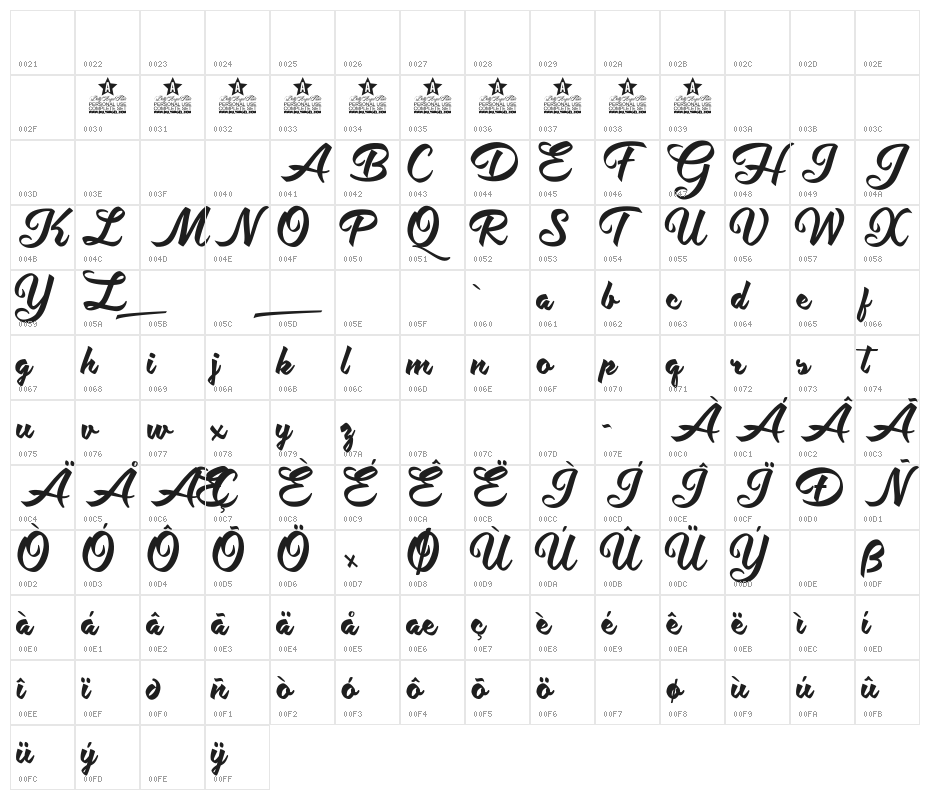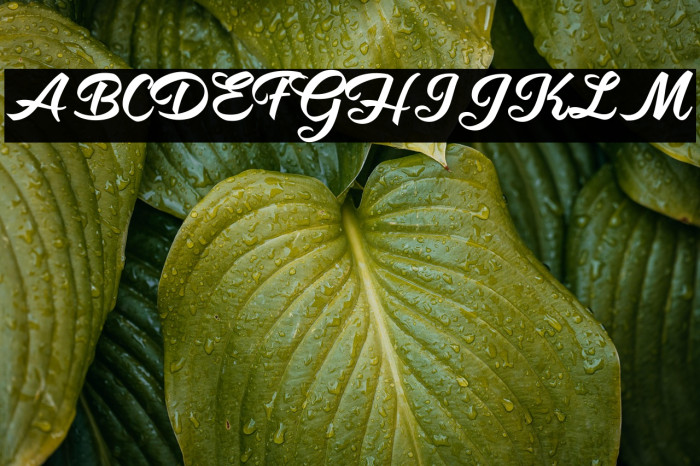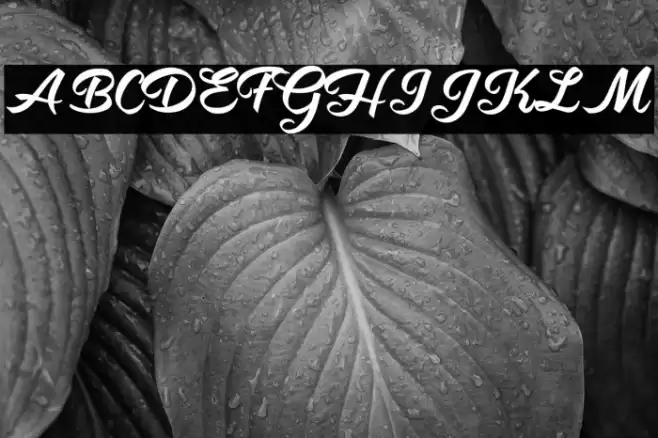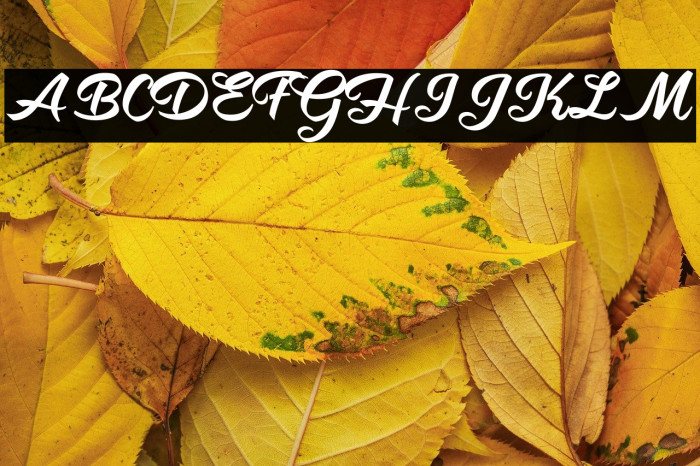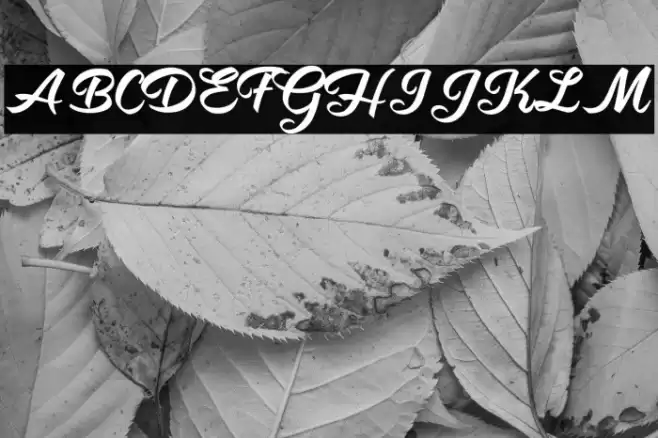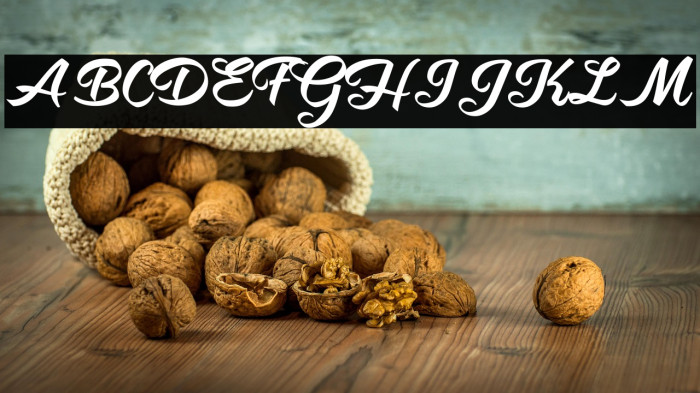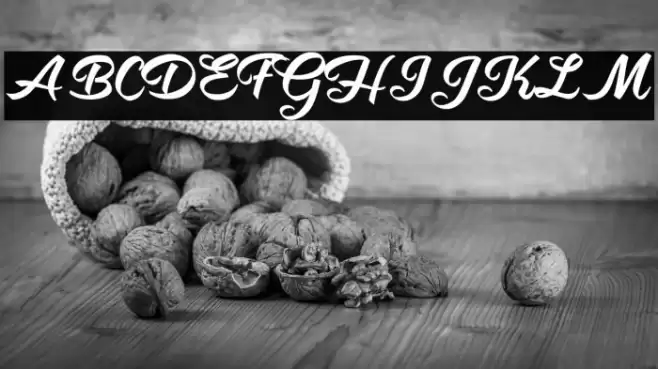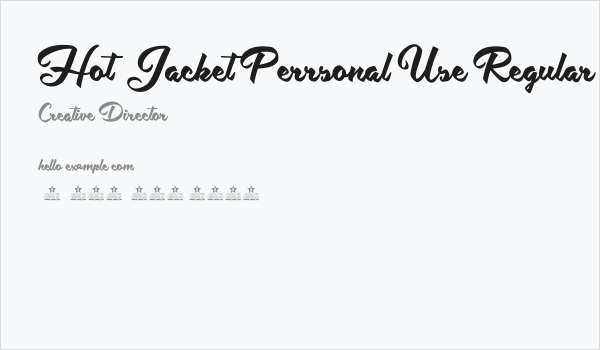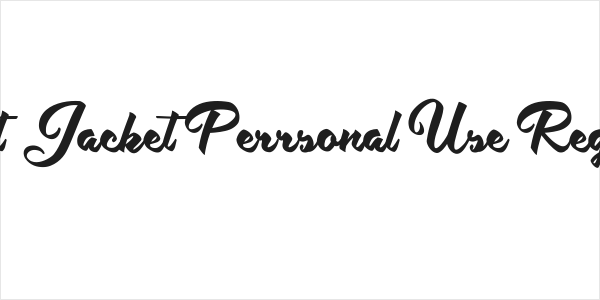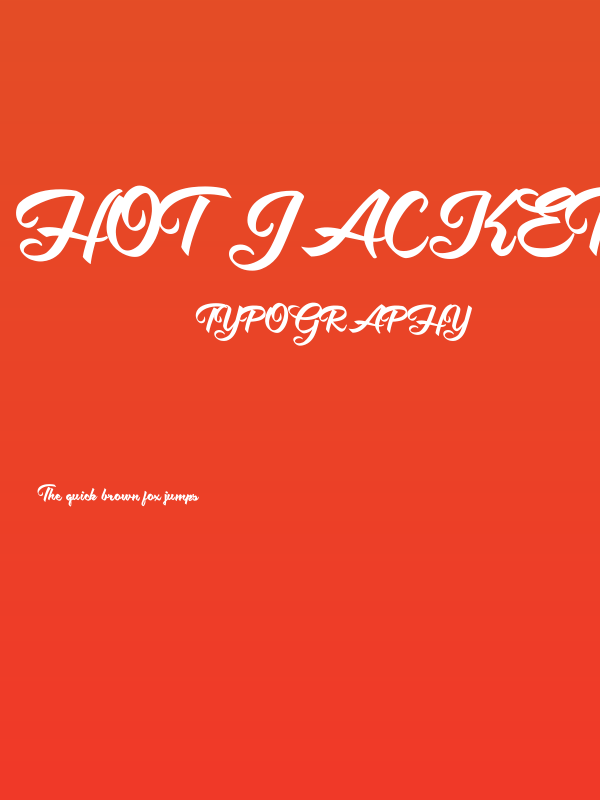
Hot Jacket Perrsonal Use Regular Font
Hot Jacket Perrsonal Use Regular Description
This font features a bold and dynamic script style, characterized by its flowing, cursive letterforms. The uppercase letters exhibit elegant loops and swashes, adding a touch of sophistication and flair. The lowercase letters maintain a consistent thickness, contributing to a harmonious and cohesive appearance. The font's design is both expressive and versatile, making it suitable for a variety of creative applications. Its bold weight ensures strong visibility, while the script style lends a personal and artistic touch. The overall aesthetic is modern yet timeless, with a hint of vintage charm.